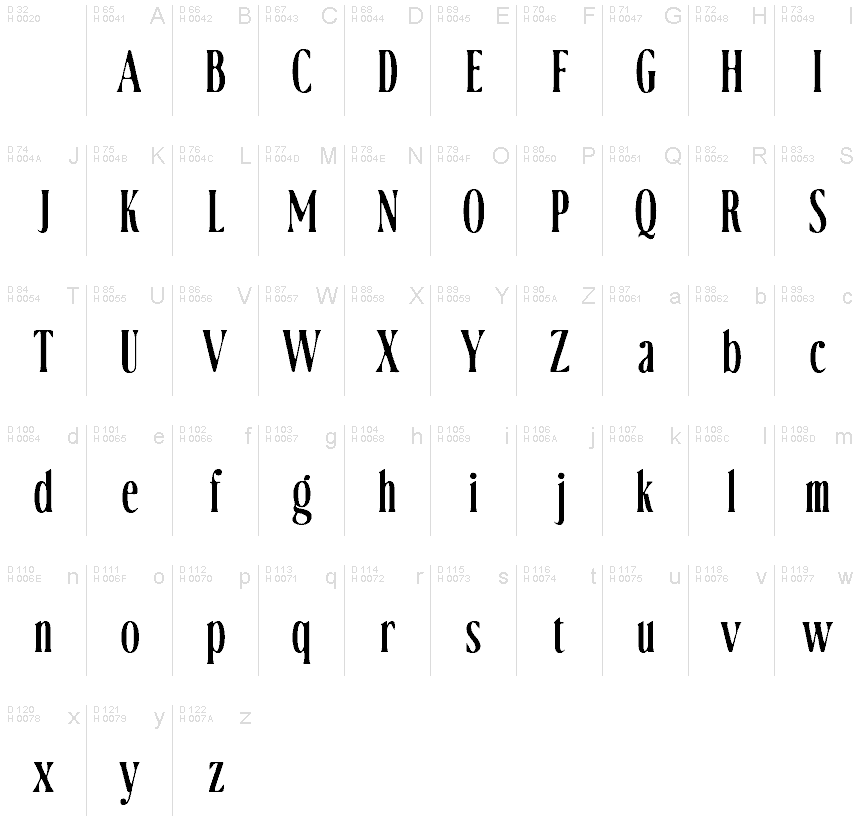
CS Damon Drawn font is a free handwritten font from Craft Supply Co. Don’t let first impressions fool you into thinking the designer’s intention is to develop condensed handwriting like other typical fonts from the same style. It’s easy to detect that serifs are an integral part of this family and play a crucial role in its final look.
Use CS Damon Drawn for posters, magazine titles, website design, stationery, greeting cards, banners, or even invitations among other projects. Find it all about utilitarian handwriting wonders when mixing it with typography and concepts of your favorite brands or applications. The font is free in TTF format.